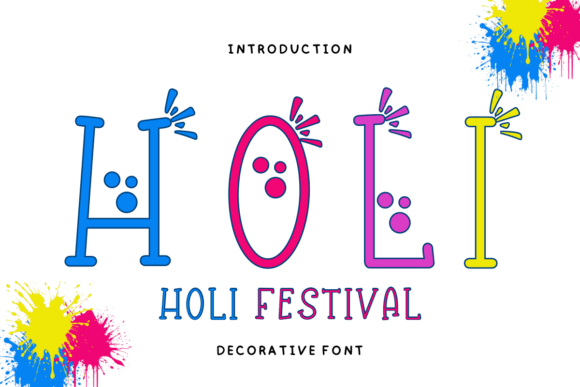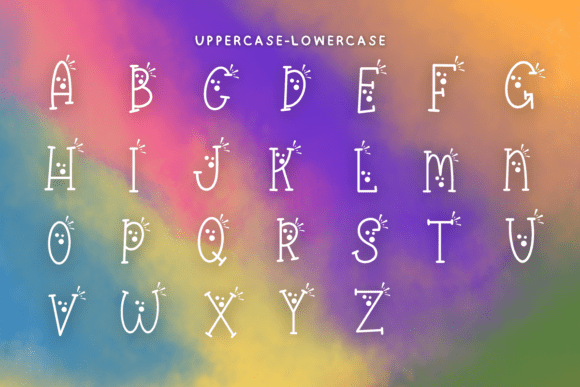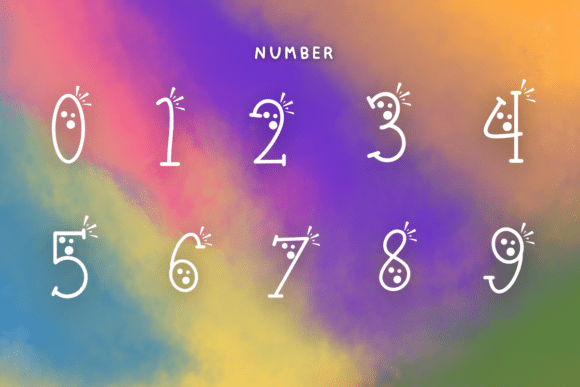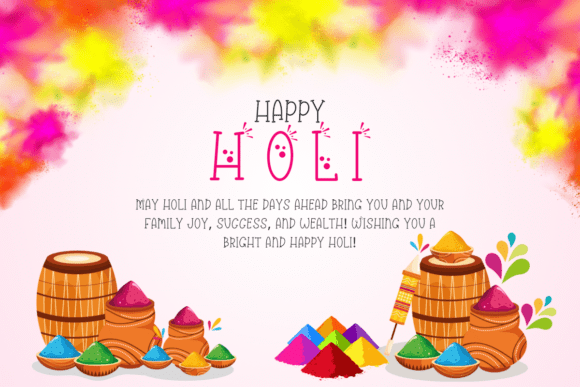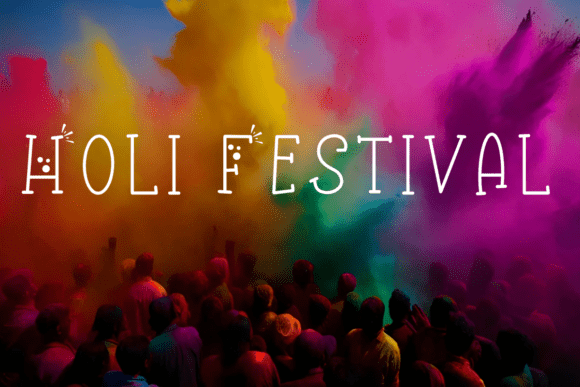
Get Ready to Color Your Designs with the Vibrant Holi Festival Font
Have you ever found yourself doodling in a notebook, bringing a blank page to life with swirling patterns and vibrant colors? That’s the magic of creative expression, and it’s something that designers know and love. Whether you’re a student jotting down notes, a writer filling a journal, or a crafter making greeting cards, the right font can elevate your work and make it truly special.
Enter the Holi Festival Font, a decorative font that’s perfect for adding a pop of color and whimsy to your designs. With its playful, hand-drawn style, it’s ideal for everything from banners and social media posts to mugs and stationery. As a designer, you’ll appreciate the flexibility and versatility of this font, which can be used for a wide range of projects and applications.
Holi Festival Font Key Features
- Font Family: Holi Festival Font is a unique, hand-drawn font designed to capture the vibrant spirit of the Holi festival. It includes multiple styles, such as Regular, Bold, Italic, and Bold Italic.
- Character Set: The font includes a wide range of characters, including uppercase and lowercase letters, numbers, and special characters, making it suitable for various applications.
- Unique Characteristics: The Holi Festival Font features intricate, hand-drawn designs and vibrant colors, making it perfect for adding a festive touch to various designs, such as invitations, posters, and social media graphics.
- Support: The font includes support for most languages that use the Latin script, making it a versatile choice for designers and artists worldwide.
Holi Festival Font Review
First impressions are everything, and the Holi Festival Font immediately caught my eye with its vibrant and playful aesthetic ✨. The font’s intricate designs and patterns evoke the spirit of the Holi festival, making it perfect for any project that requires a touch of Indian culture.
- Colorful and dynamic, the font is sure to add a pop of color to any design ✨
- It’s ideal for projects related to the Holi festival, Indian culture, or anything that requires a festive vibe
- The font is highly customizable, allowing you to adjust the color, size, and spacing to suit your needs
However, there are a few limitations to consider ⚠️:
- The font may not be suitable for projects that require a more minimalist or straightforward approach
- Some of the letters and symbols may be difficult to read at smaller font sizes, especially for those with vision impairments
- The font’s intricacy may make it challenging to use in projects with limited design resources or technical expertise
Overall, I would give the Holi Festival Font 4 out of 5 stars. While it’s a beautiful and unique font, its limitations may make it less suitable for certain projects. Still, it’s an excellent choice for anyone looking to add a touch of Indian culture and festive flair to their designs.
The Holi Festival Font is perfect for creating festive designs for events, parties, and celebrations. Some common use cases include:
- Invitations and party flyers
- Posters and banners
- Social media graphics and posts
- Wedding and birthday invitations
To get the most out of the Holi Festival Font, experiment with different font sizes, colors, and styles. Use it in conjunction with other design elements, such as images and graphics, to create a cohesive look. Don’t be afraid to try out different effects, such as layer blending modes and texture overlays, to give your design a unique look.